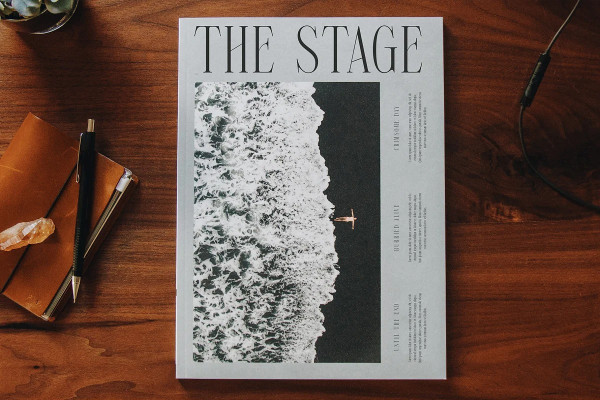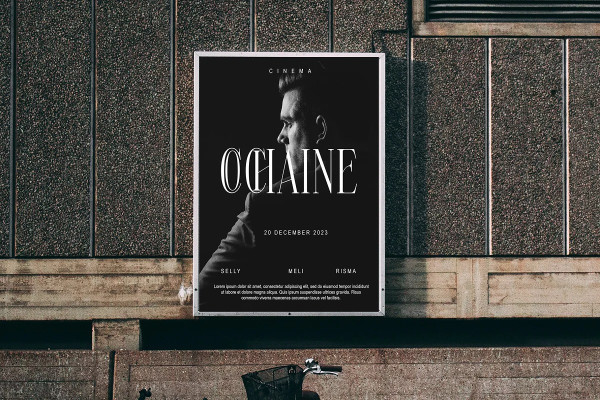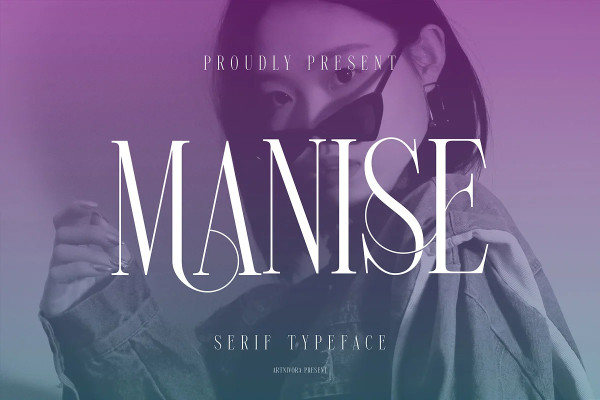
Manise Font
Manise Font, is an elegant and bold serif font. Fall in love with its incredibly versatile style and use it to create gorgeous wedding invitations, beautiful stationary art, eye-catching social media posts, and much more.